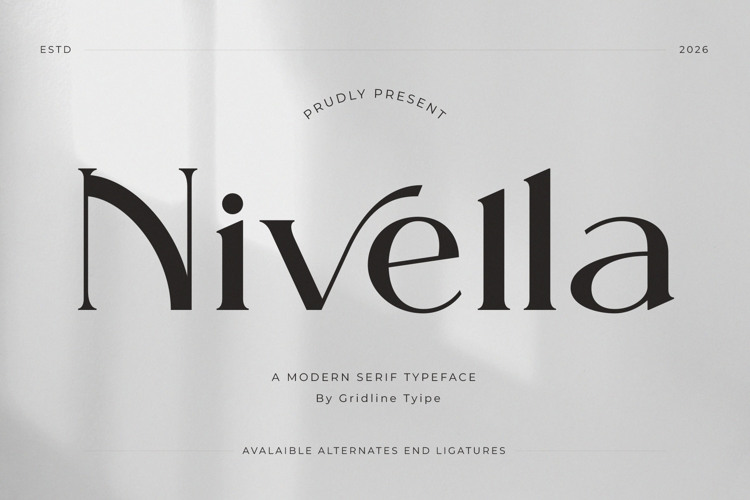
Nivella Font
Nivella is an elegant, high-contrast serif typeface with a modern, fashion-editorial feel. Its refined capitals, dramatic thick-thin contrast, and graceful swashes lend a luxurious, sophisticated style to logos, brand identities, wedding stationery, magazines, and beauty or fashion projects. Free for personal use; a commercial license is available from the designer.